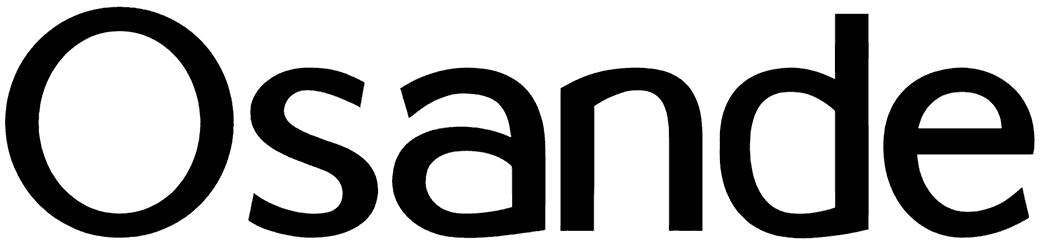
Osande Font
Osande is for those who are looking to find an ideal sans-serif font for a website, invitation, book, or brochure. The simplicity of this font, along with the observance of standard principles in its design, has made it able to satisfy all tastes well and create a balance in your design.
https://fontbundles.net/xdcreative/1178418-osande-sans-serifOsande is a modern sans serif font with neo-Grotesque touch, more homogenous forms and minimal stroke contrast.
Osande the font family contains 3 basic forms: italics, obliques and uprights,
Each of which has 7 different weights ( Thin, Extra light, Light, Regular, Medium, Semi bold and Bold ).
Osande Perfectly suited for graphic design and any display use ( for the logos, t-shirts, the web as well as for print, and also great for headings),